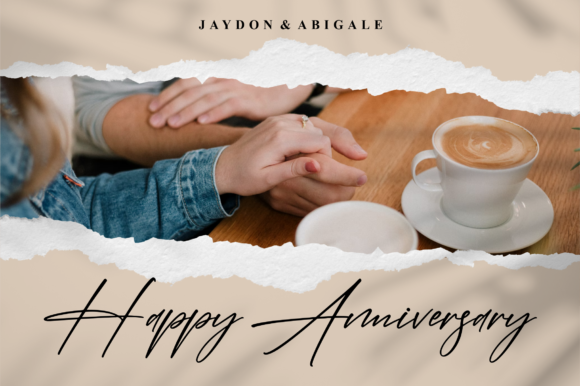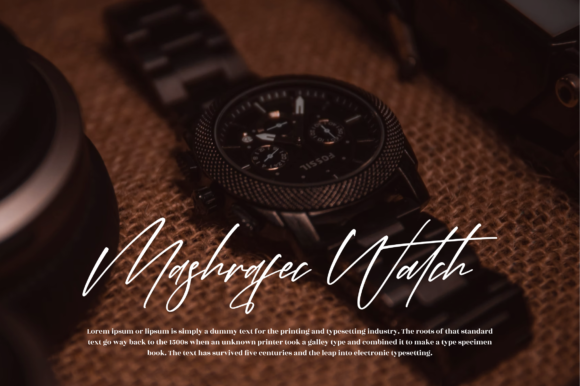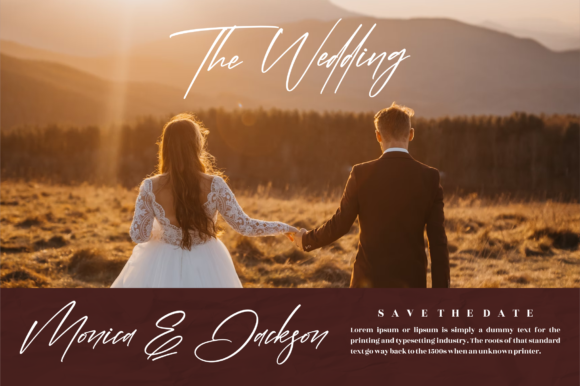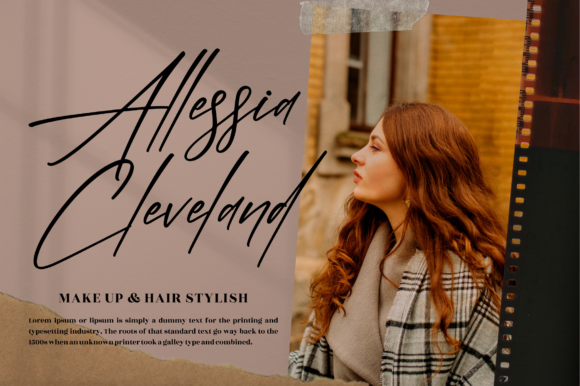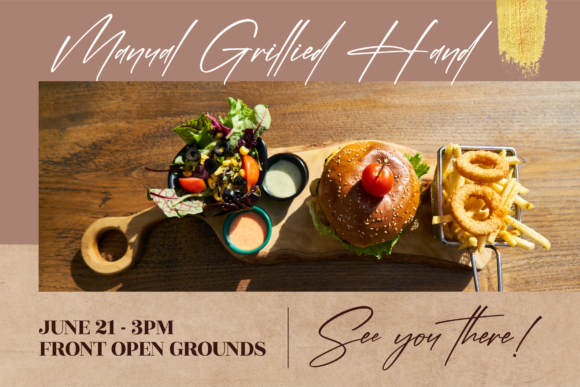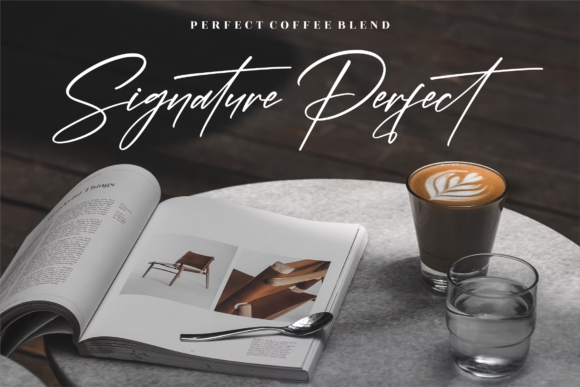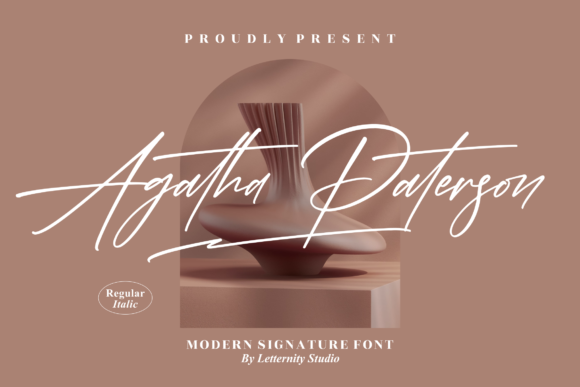
Introducing Agatha Paterson Font: The Epitome of Elegance and Sophistication
Are you on the hunt for a font that exudes elegance, sophistication, and romance? Look no further than Agatha Paterson Font, a stunning script font that is sure to captivate your audience. With its thin lettering and graceful curves, Agatha Paterson is the perfect choice for designers and crafters seeking to add a touch of luxury to their creations.
The Characteristics of Agatha Paterson Font
Agatha Paterson Font boasts a range of characteristics that make it an ideal choice for a variety of design projects. Its key features include:
- Thin lettering: Agatha Paterson’s slender lines create a sense of refinement and poise, making it perfect for designs where you want to convey a sense of sophistication.
- Graceful curves: The font’s flowing curves and loops add a touch of whimsy and romance, making it ideal for designs that require a more feminine and elegant approach.
- Script style: Agatha Paterson is a script font that looks like it was written with a pen or brush, giving it a personal and organic feel.
Uses for Agatha Paterson Font
Agatha Paterson Font is an incredibly versatile font that can be used for a wide range of design projects. Here are some ideas to get you started:
- Wedding invitations: Create stunning wedding invitations that set the tone for a beautiful and elegant wedding.
- Stationary art: Use Agatha Paterson to create gorgeous stationary art, including letterheads, notecards, and journals.
- Social media posts: Add a touch of elegance to your social media posts, making them stand out from the crowd.
- Branding and packaging: Use Agatha Paterson to create luxurious branding and packaging that reflects your brand’s values and aesthetic.
Why Choose Agatha Paterson Font?
With so many fonts available, why choose Agatha Paterson? Here are just a few reasons why this font stands out from the rest:
- Unique and distinctive: Agatha Paterson is a one-of-a-kind font that will help your designs stand out from the crowd.
- Elegant and sophisticated: This font exudes elegance and sophistication, making it perfect for designs that require a high-end feel.
- Easy to read: Despite its thin lettering, Agatha Paterson is surprisingly easy to read, making it perfect for body text and headlines.
Tips for Using Agatha Paterson Font
To get the most out of Agatha Paterson Font, here are a few tips to keep in mind:
- Use it sparingly: Agatha Paterson is a font that demands attention, so use it sparingly to avoid overwhelming your design.
- Pair it with contrasting fonts: Pair Agatha Paterson with contrasting fonts to create visual interest and add depth to your design.
- Experiment with colors: Agatha Paterson looks stunning in a range of colors, so don’t be afraid to experiment and find the perfect hue for your design.
Agatha Paterson Font is a true gem in the world of typography. With its thin lettering, graceful curves, and elegant script style, it’s the perfect choice for designers and crafters seeking to add a touch of luxury to their creations. Whether you’re creating wedding invitations, stationary art, or social media posts, Agatha Paterson is sure to impress. So why wait? Fall in love with Agatha Paterson Font today and take your designs to the next level!